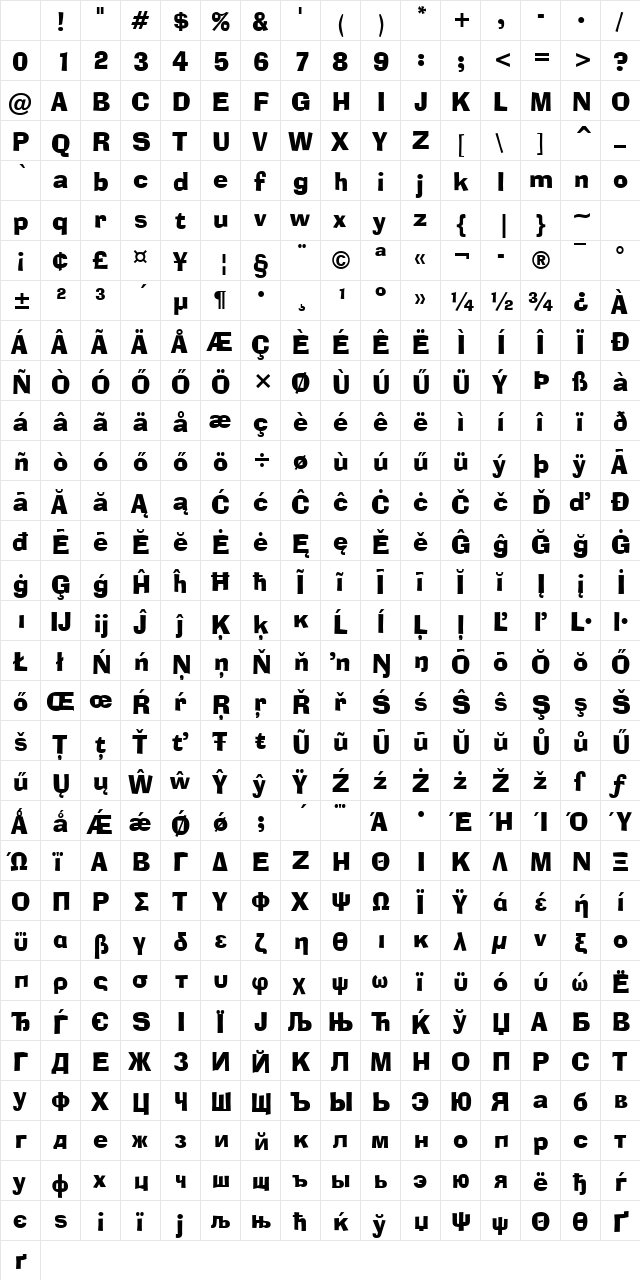
Complete Huni_Abligat Regular glyph index. Displaying only characters natively supported by Huni_Abligat Regular font.
Huni_Abligat is a composed and adaptable typeface that performs quietly and consistently across a wide range of design contexts.